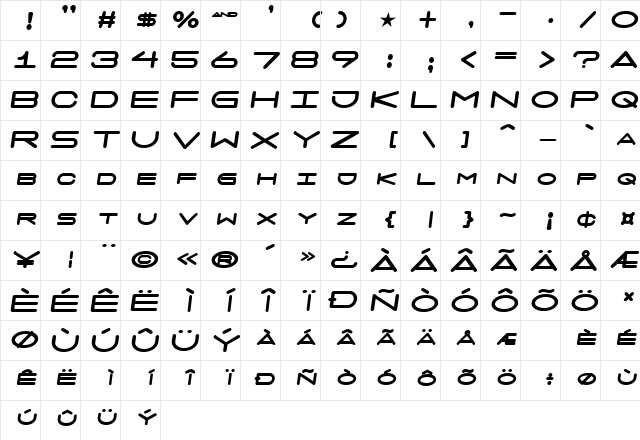
Complete 7 days fat oblique Regular glyph index. Displaying only characters natively supported by 7 days fat oblique Regular font.
7 days fat oblique is a composed and adaptable typeface that performs quietly and consistently across a wide range of design contexts. The slanted form adds forward momentum and visual energy.